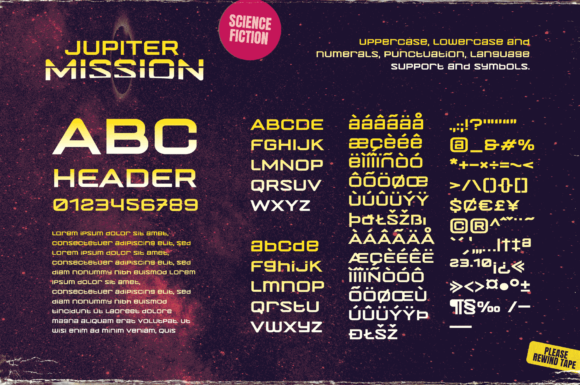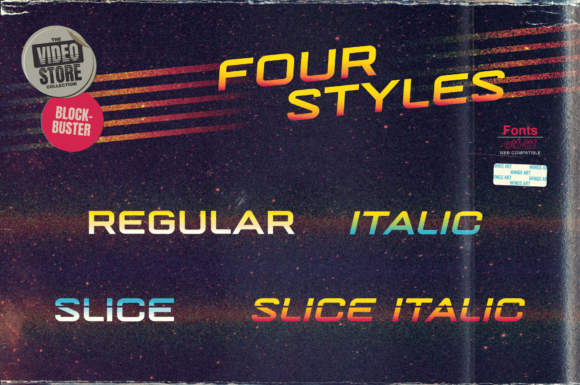
Introduction to Jupiter Mission Font
Do you remember that moment when a burst of creative energy strikes, and your imagination runs wild? Maybe it’s the spark of a new design project, or the thrill of bringing a concept to life. For designers, moments like these are a regular occurrence, and the right tools can make all the difference. That’s where the Jupiter Mission Font comes in – a bold and futuristic display font that’s perfect for adding a modern, techno touch to your creative project.
Whether you’re working on a web design, crafting business cards, or exploring other innovative design avenues, the Jupiter Mission Font is an invaluable resource. Its sleek, high-quality design is ideal for backgrounds with transparent settings, allowing your creative vision to shine through. And the best part? This fantastic design resource is available for free download, making it an instant hit with designers looking for a reliable, high-quality font to elevate their work.
- High-quality design resource suitable for creative projects, including space-themed graphics and illustrations.
- Features a transparent background, allowing for seamless integration into any design project.
- Unique, futuristic design style with a clean and modern aesthetic, perfect for science fiction and space-themed projects.
- Designed to be highly legible and versatile, making it suitable for use in a variety of contexts, from print to digital media.
I recently had the chance to work with the Jupiter Mission Font, and I must say it’s a unique addition to any design project. This font is perfect for creating a sense of adventure and exploration in your work.
- ✨ High-quality design: The font is well-crafted and visually appealing.
- ✨ Versatile: The font can be used for a variety of creative projects, from sci-fi to space-themed designs.
- ✨ Transparent background: The font’s transparent background makes it easy to layer over images or other design elements.
- ⚠️ Limited character set: The font’s character set is somewhat limited, which may make it difficult to use for longer blocks of text.
- ⚠️ Not ideal for small text: The font’s bold lines may make it difficult to read at smaller font sizes.
Overall, I’m impressed with the Jupiter Mission Font. While it may have some limitations, it’s a great addition to any designer’s toolkit. I’d definitely recommend it for creative projects that require a sense of adventure and exploration.
- Use the font with a transparent background for a clean and modern look
To get the most out of the Jupiter Mission Font, try using it with bold text or as a title font. You can also use it to create a sense of hierarchy in your design by using it for headings and subheadings.
The Jupiter Mission Font is perfect for a variety of creative projects, including:
- Business cards and resumes
- Posters and advertisements
- Websites and landing pages